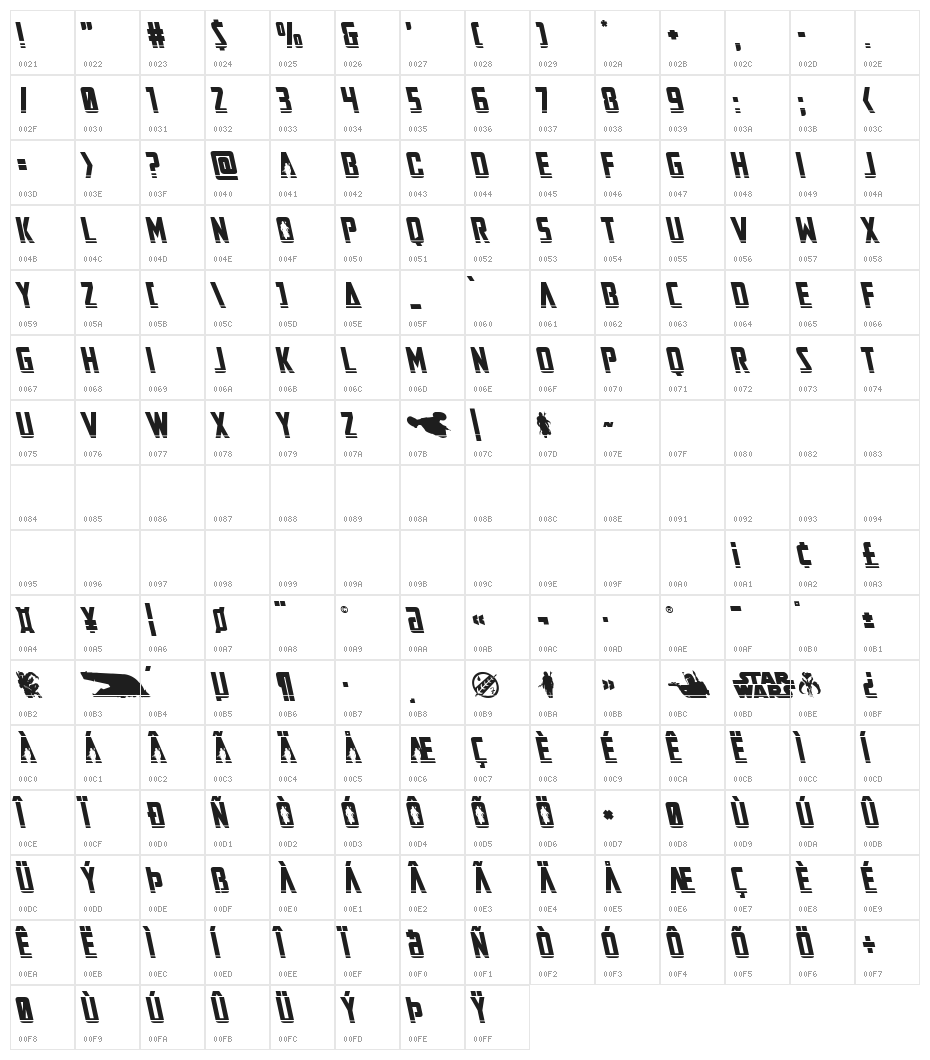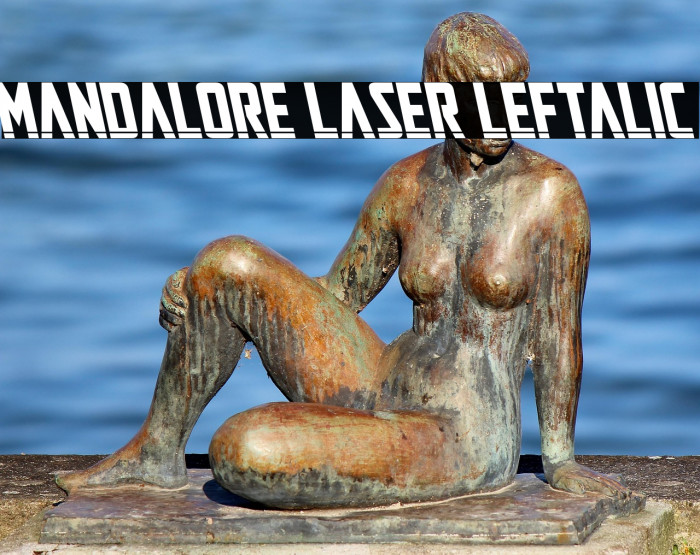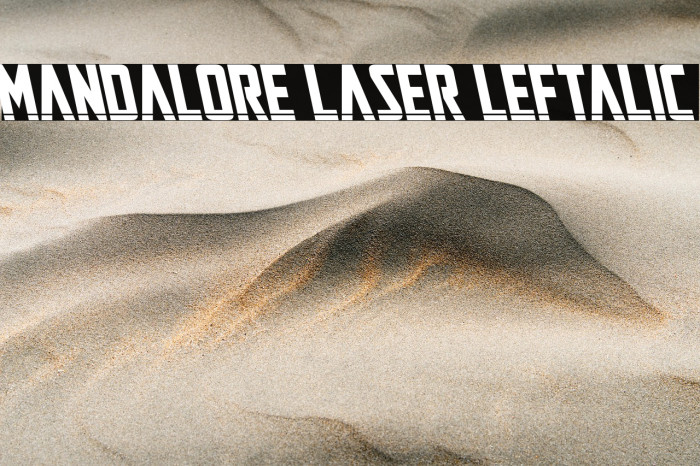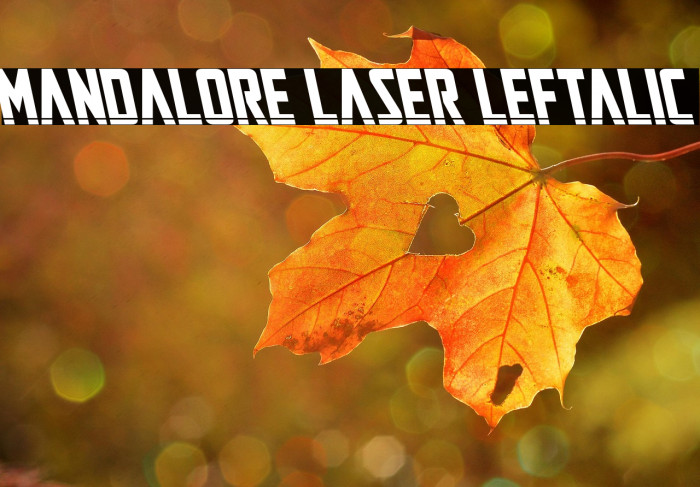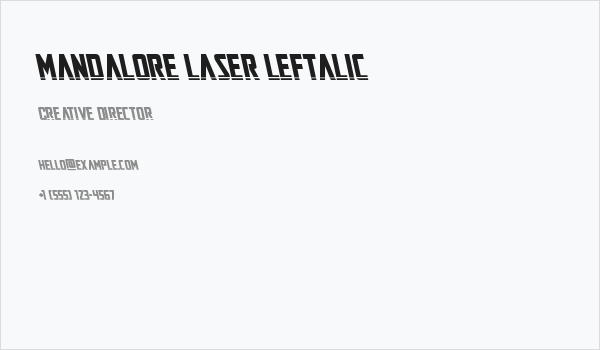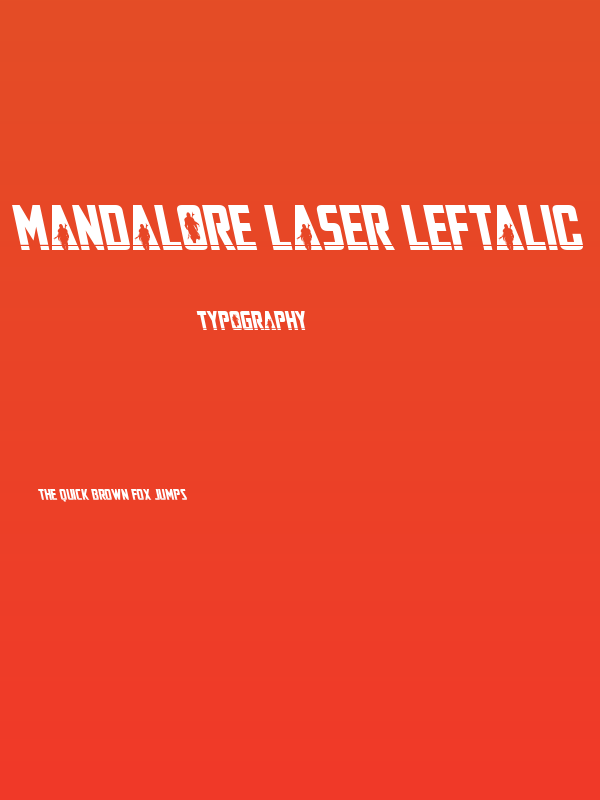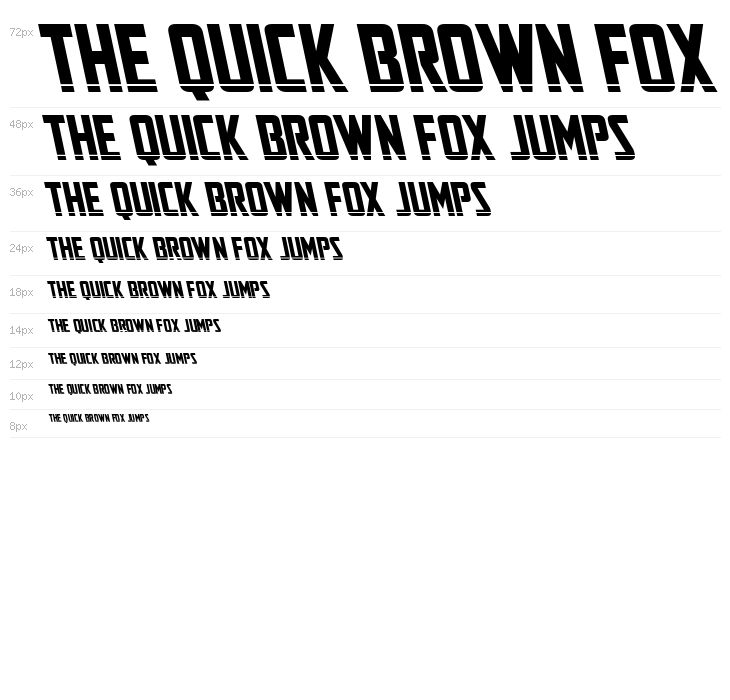
Mandalore Laser Leftalic Font
Mandalore Laser Leftalic Description
This font features a bold, futuristic design with a distinct laser-cut appearance. The characters are angular and sharp, with a consistent thickness throughout, giving it a strong and impactful presence. The uppercase letters are particularly striking, with a unique silhouette that includes a stylized figure integrated into some letters. The numbers and special characters maintain the same bold and dynamic style, making the font suitable for attention-grabbing designs. Its geometric structure and left-leaning italic slant add a sense of motion and energy, making it ideal for modern and tech-oriented projects.
| Proposed Projects | Ideal for sci-fi themed posters, video game titles, tech branding, and futuristic event flyers. |